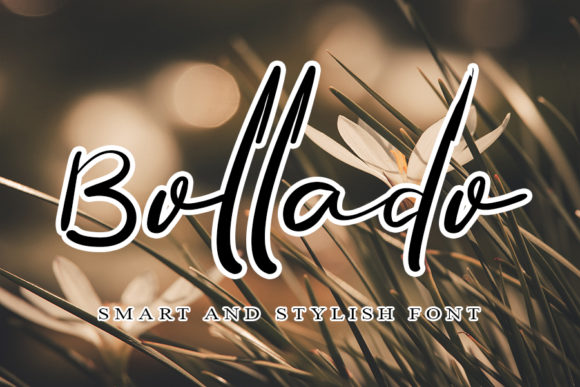
About Bollado Font
Bollado is a very beautiful and attractive font. It looks stunning on wedding invitations, thank you cards, quotes, greeting cards, logos, business cards and every other design which needs a handwritten touch.